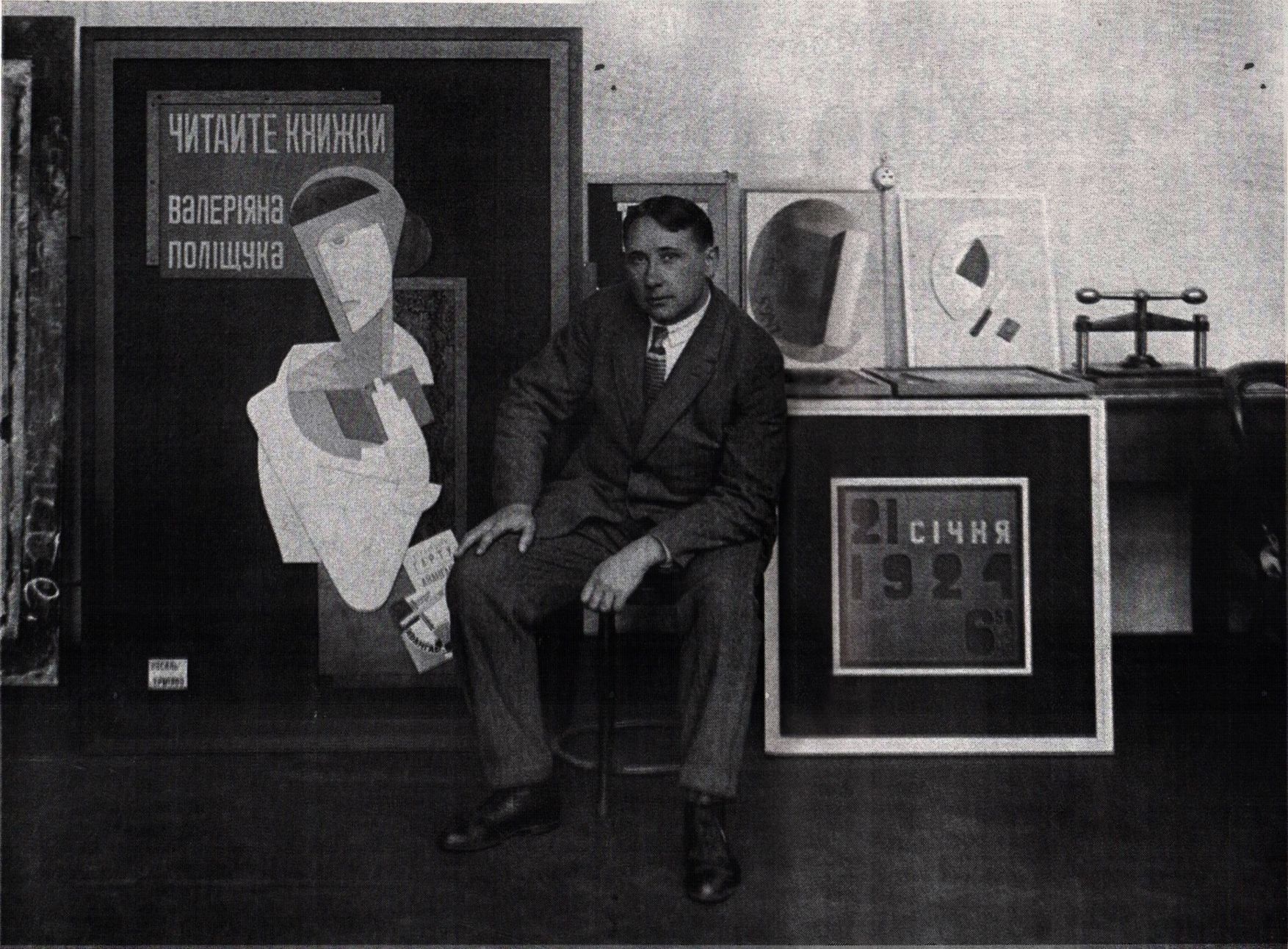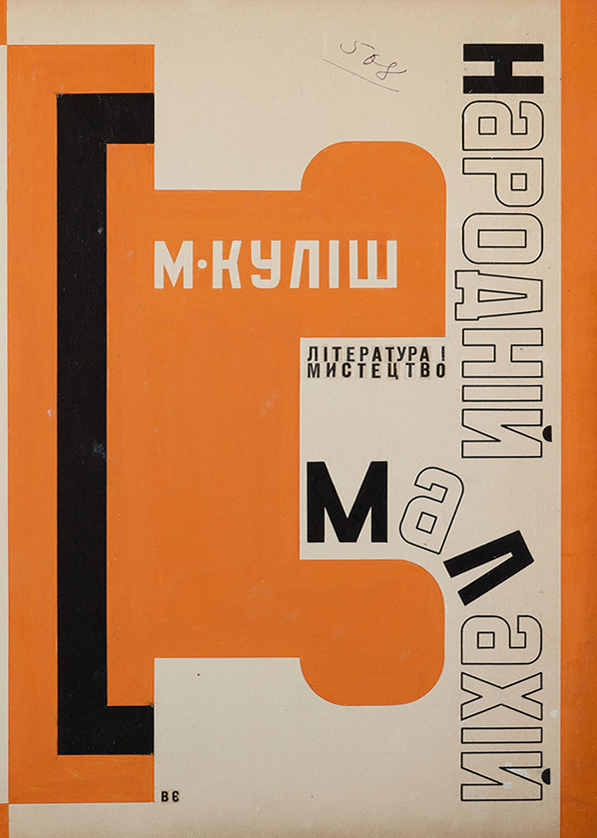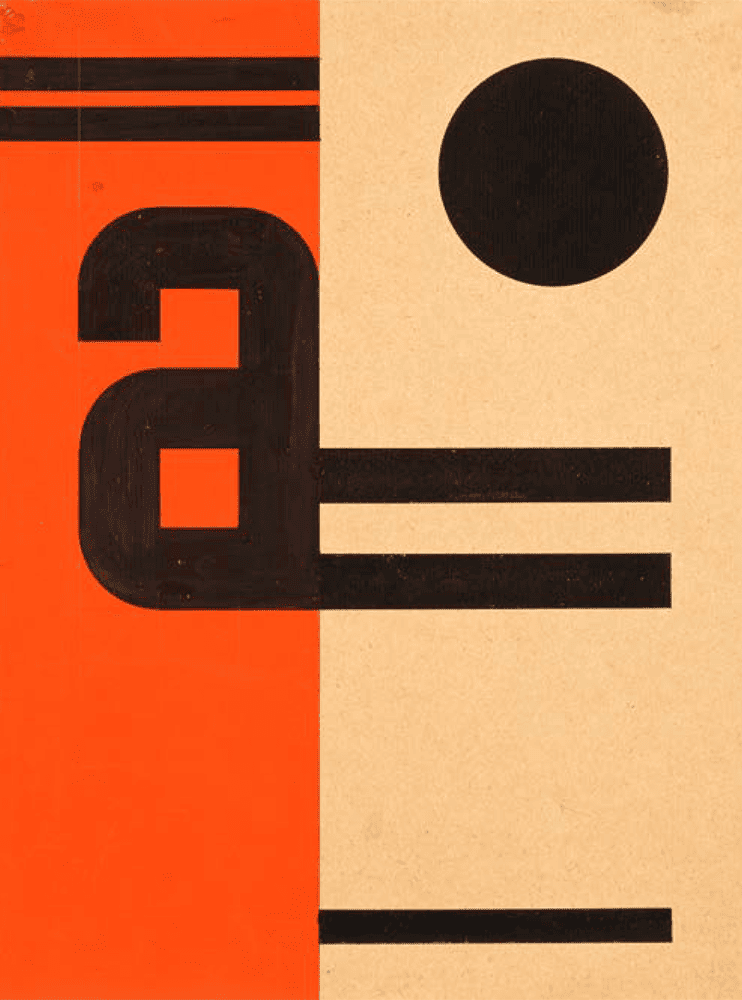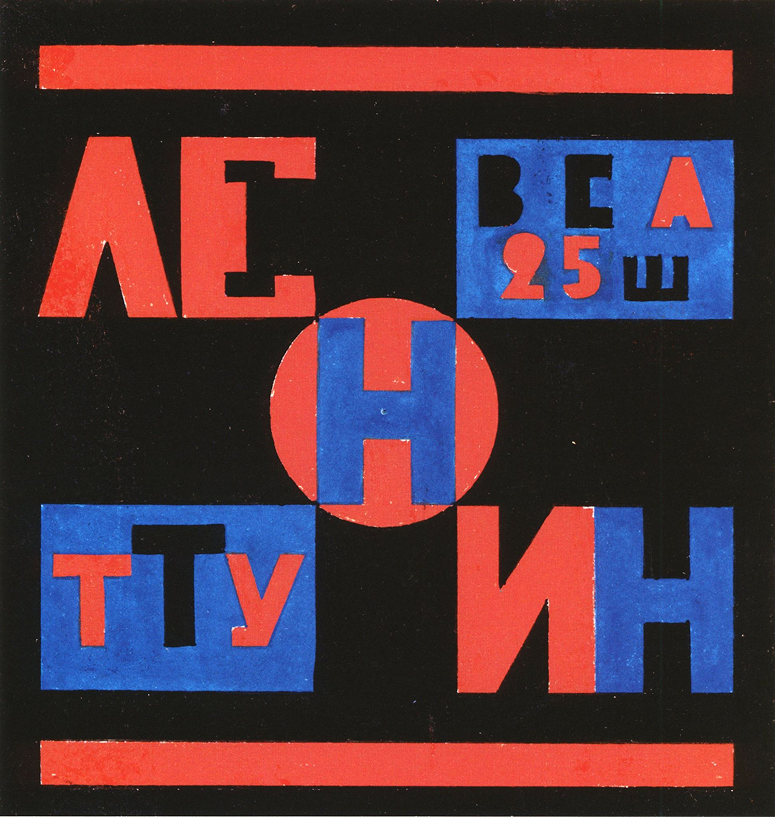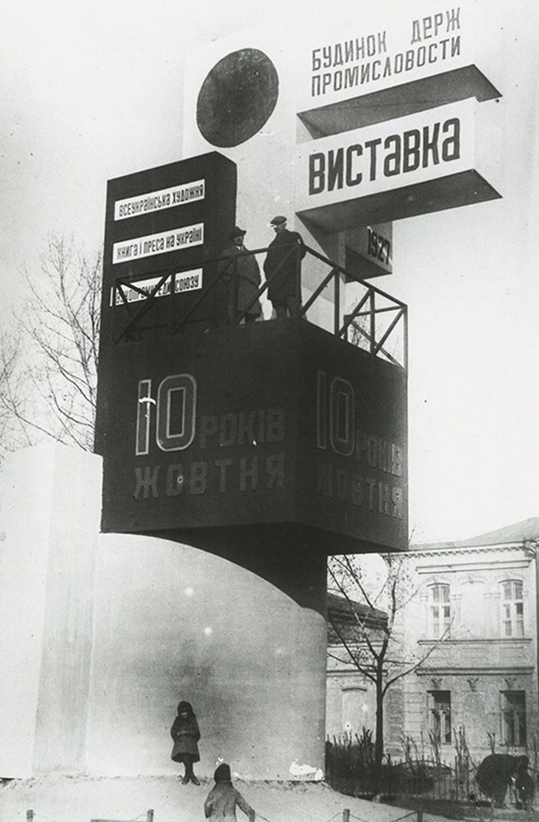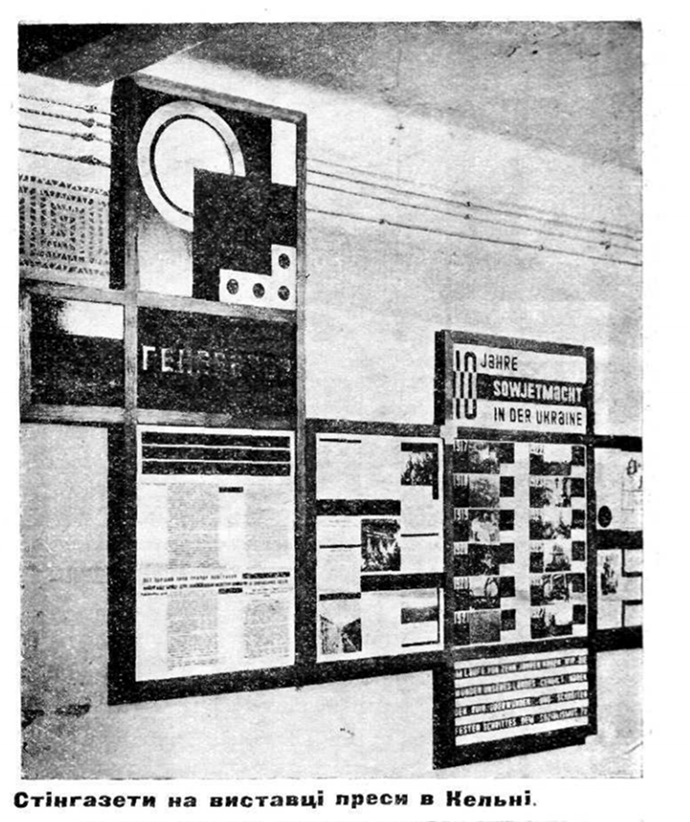
KTF Jermilov is a modular display font following the typographical practice of Kharkiv avant-garde artist and designer Vasyl Jermilov. As a representative of its era, it shares constructivist ideals of “the struggle against superfluity”, striving for universality and convenience. The font consists of two utilitarian principles: a) uppercase letters composed of limited geometric elements based on a 3x5 square grid, b) lowercase signature letter “a”. The authors' estate has been thoroughly analyzed and translated in font of two cuts (solid and stencil) with ten interchangeable stylistic sets enhancing the initial idea of a “font-constructor” and generating countless variations.
This typographic style started in the 1920s as a modernist attempt of creating a universal typeface that could be easily reproduced and used by everyone with no previous experience*. It was also a follow-up of an elementary idea of a “square as a key module of art” (Malevich's suprematist manifesto) with its heralds El Lissitsky, Herbert Beyer, Joost Schmidt, and Jan Tschichold to name a few. Jermilov's letters aligned with this agenda and were used by the author throughout all his life in various printed matter and three-dimensional forms. This font's passionate revolutionary nature is in paradox. Gradually the idea of simplicity started associating with the scarcity of forms. An idea of a “square as a beginning of art” became the realm of a Square as an End of art. When other forms of constructivist art were emasculated, hidden, placed in galleries, or even destroyed, this font style remained popular in use till the end of the USSR and still exists today on entrance signs, navigation, bus stops, painted letterings, defining post-Soviet DNA.
*This DIY method was published around that time in some typography-related publications. It mostly implied drawing a grid, mapping the letters following the specific model, cutting them out, and assembling them rhythmically.
- Portrait of Vasyl Jermilov. Author unknown.
- Agitprop train “Red Ukraine”. Carriages decorated by Vasyl Jermilov, 1921. Photograph from the Central State Archive-Museum of Literature and Art of Ukraine, Kyiv.
- “Avant-garde”, sketch for a cover design for the publication of the Avant-garde group. Vasyl Jermilov, 1928. National Art Museum of Ukraine, Kyiv.
- “Generator” wall newspaper (stinhazeta). Vasyl Jermilov, 1927–1928. International Press Exhibition, Cologne. Photograph from the Central State Archive-Museum of Literature and Art of Ukraine, Kyiv.
- “Lenin Cigarettes”, packaging design for the Tobacco Trust of Ukraine. Vasyl Jermilov, 1920s. National Art Museum of Ukraine, Kyiv.
- Agitational and advertising tribune for the exhibition marking the tenth anniversary of the October Revolution. Vasyl Jermilov, Kharkiv, 1927. Photograph from Konstantin Grigoryshyn's collection, Moscow.
- Vasyl Jermilov beside his works in the workshop of the Kharkiv Art Institute, 1927. Photograph from the archive of D. Horbachev, Kyiv.
- Book cover design for “Narodnyi Malakhii”. Vasyl Jermilov, 1931. Image from the family collection of Artur Umansky.
- Design for a recreation room in the Kharkiv Palace of Pioneers. Vasyl Jermilov, 1932. Collection of Alfred Taubman.
- Lobby interior of the Kharkiv Palace of Pioneers, Vasyl Jermilov, 1935. Photograph from archive of D. Gorbachov, Kyiv.